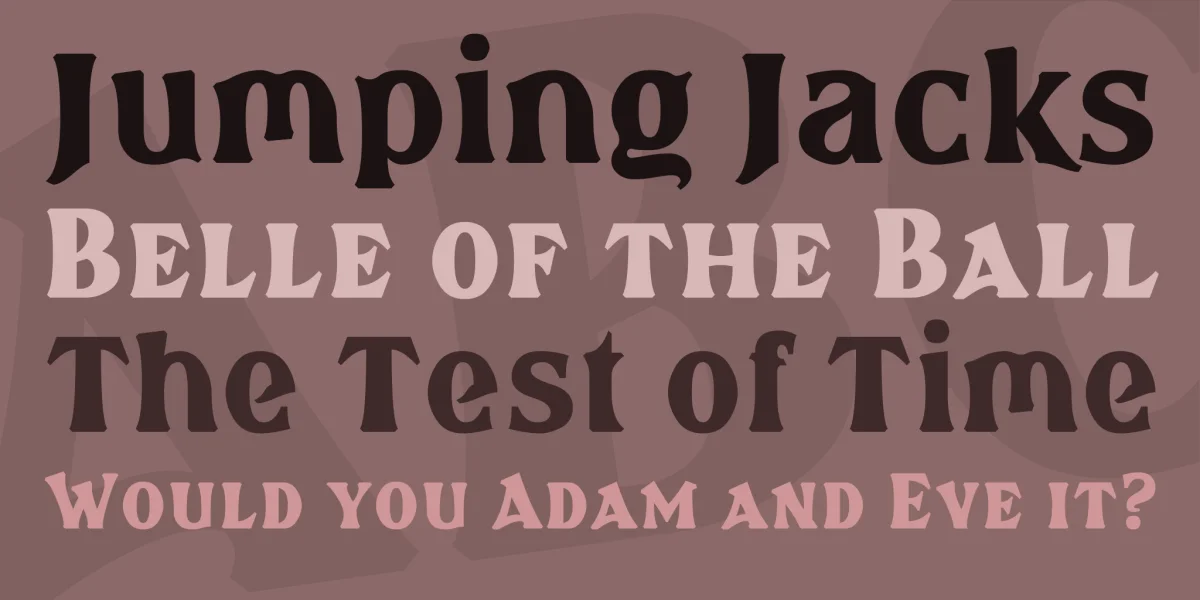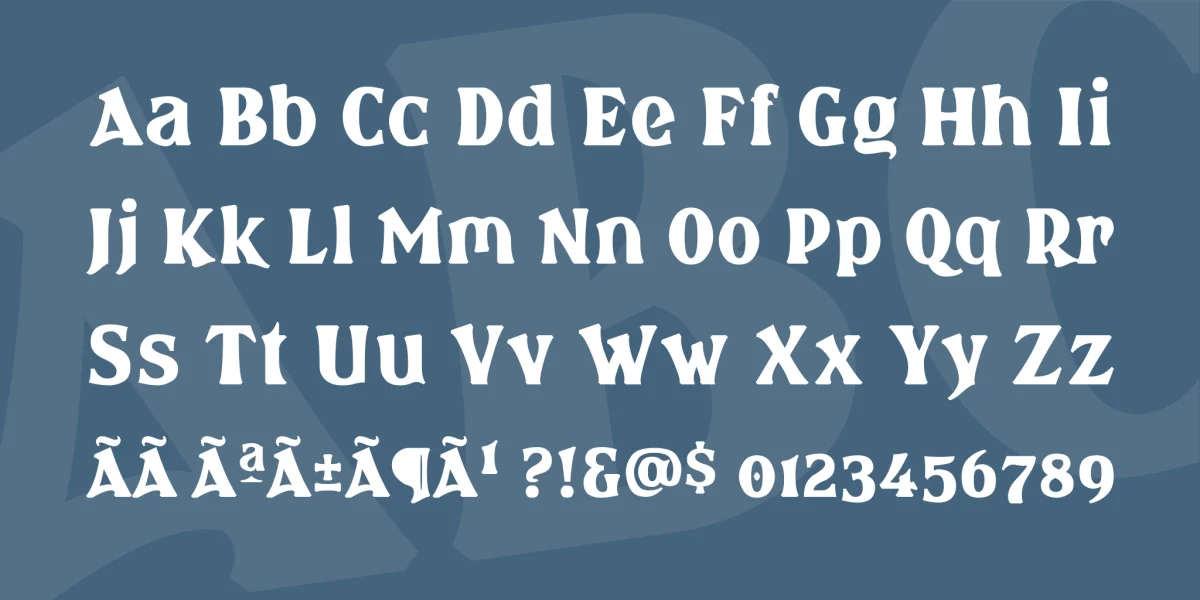
Ladies and gentlemen! Boys and girls! Behold the spectacle in this corner! In addition to ordinary upper and lower case letters, Brasspounder also has freakishly diminutive capitals, known to the Eastern mystics as "small caps". The price of a ticket to come inside and gawk at this deviation of nature is a lowly two bits (but downloading the font is, as always, free).